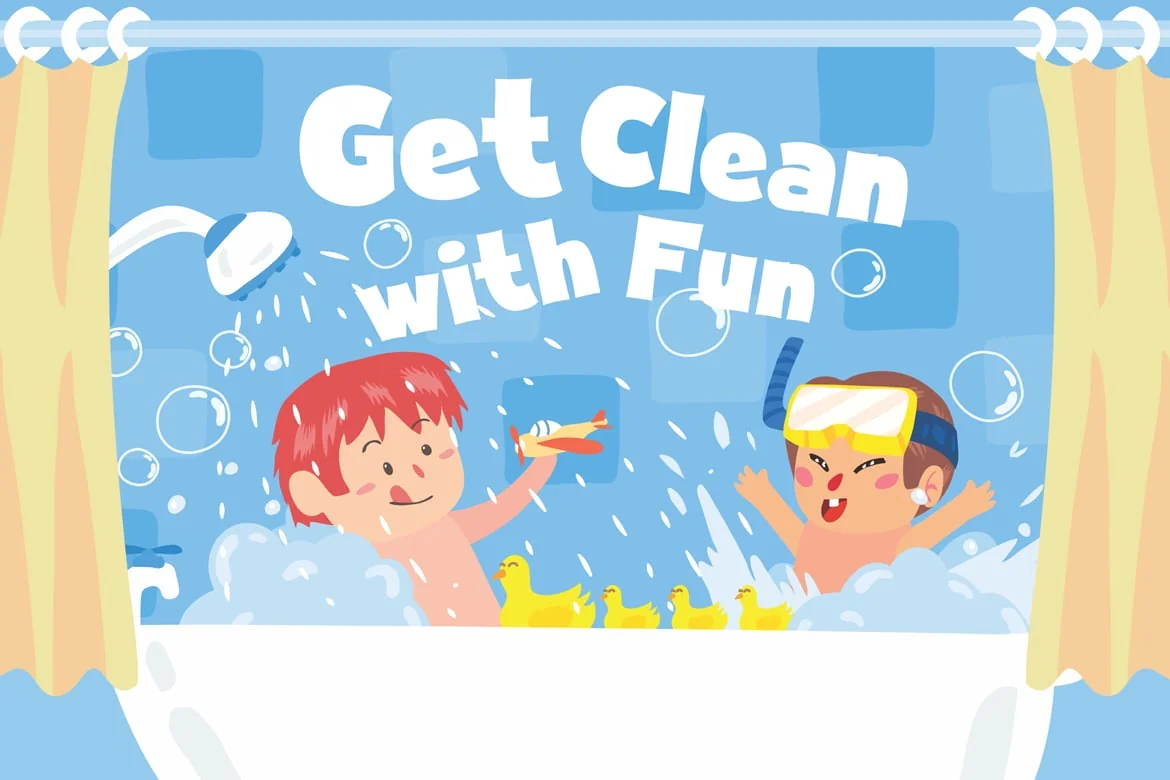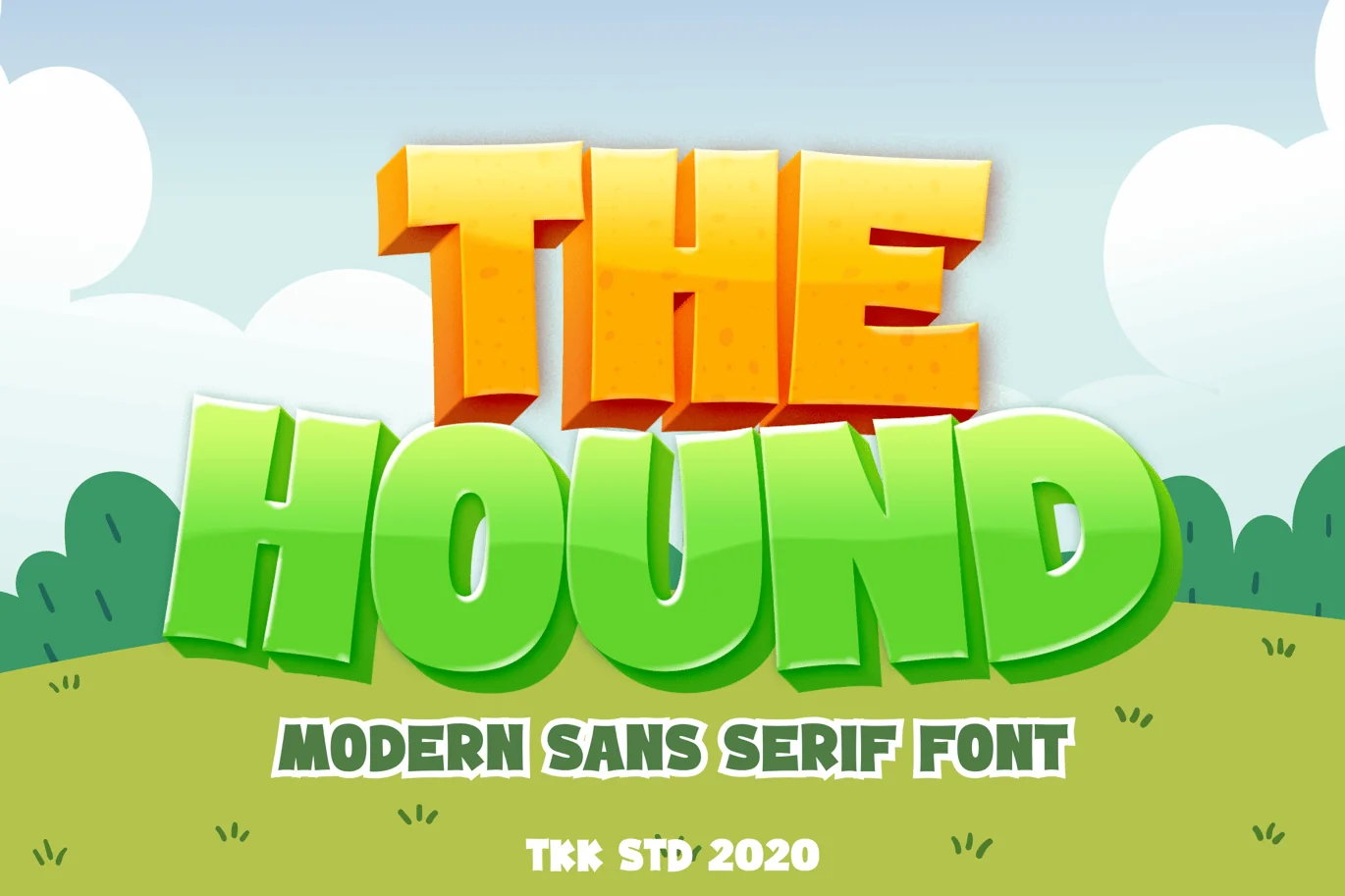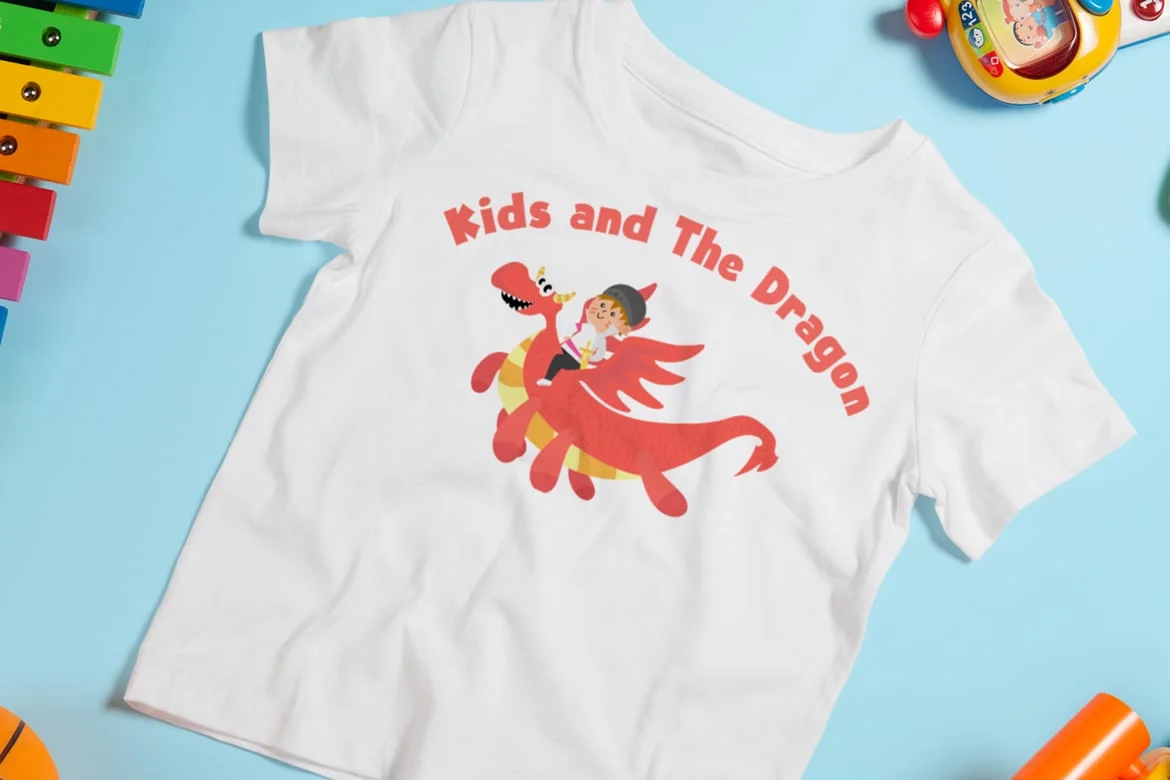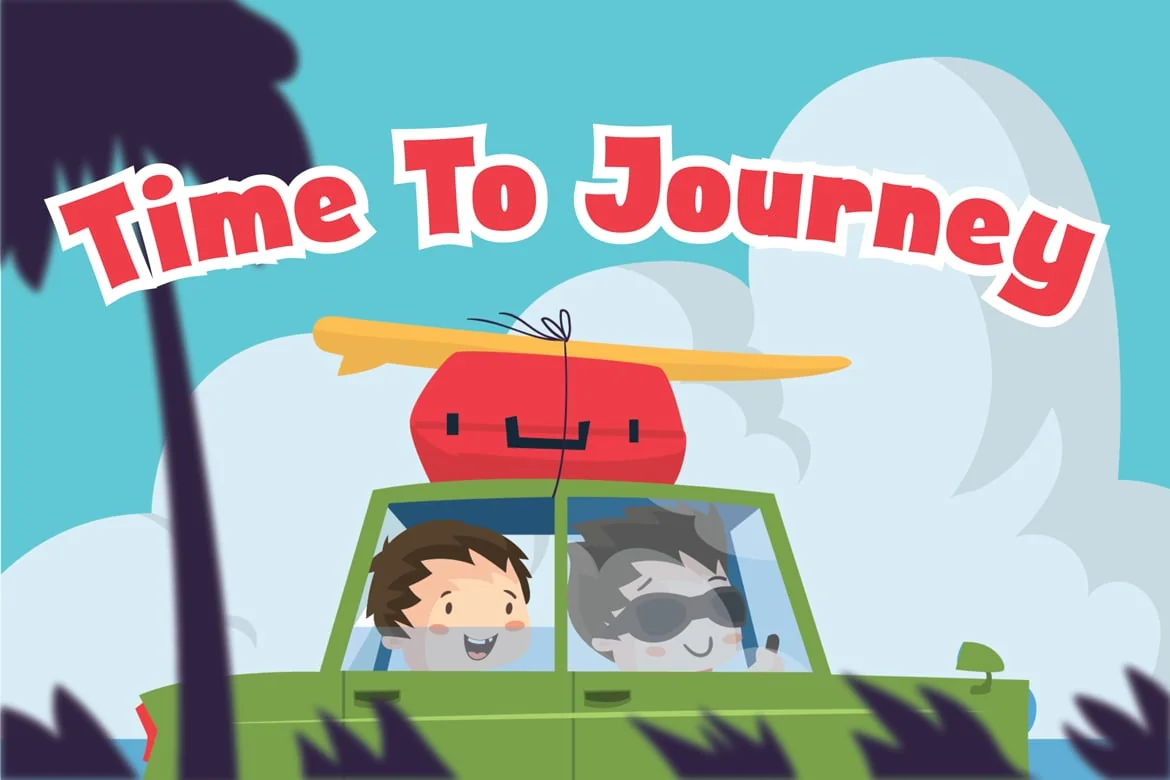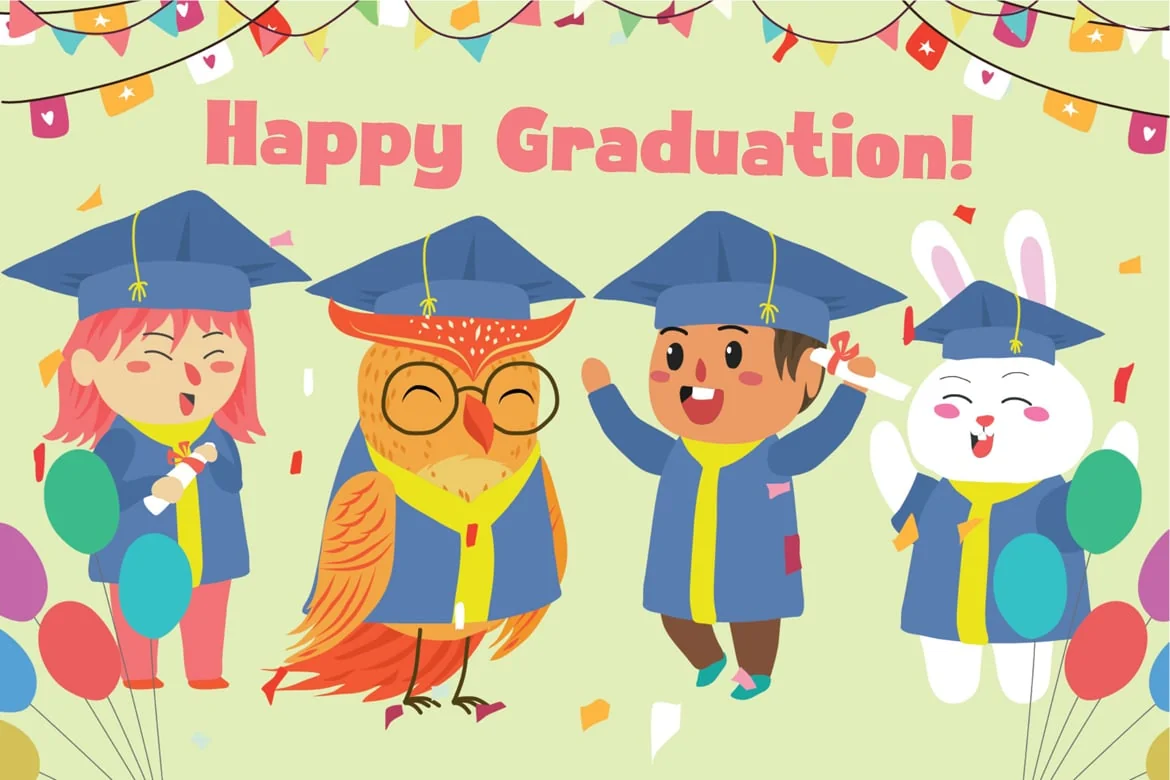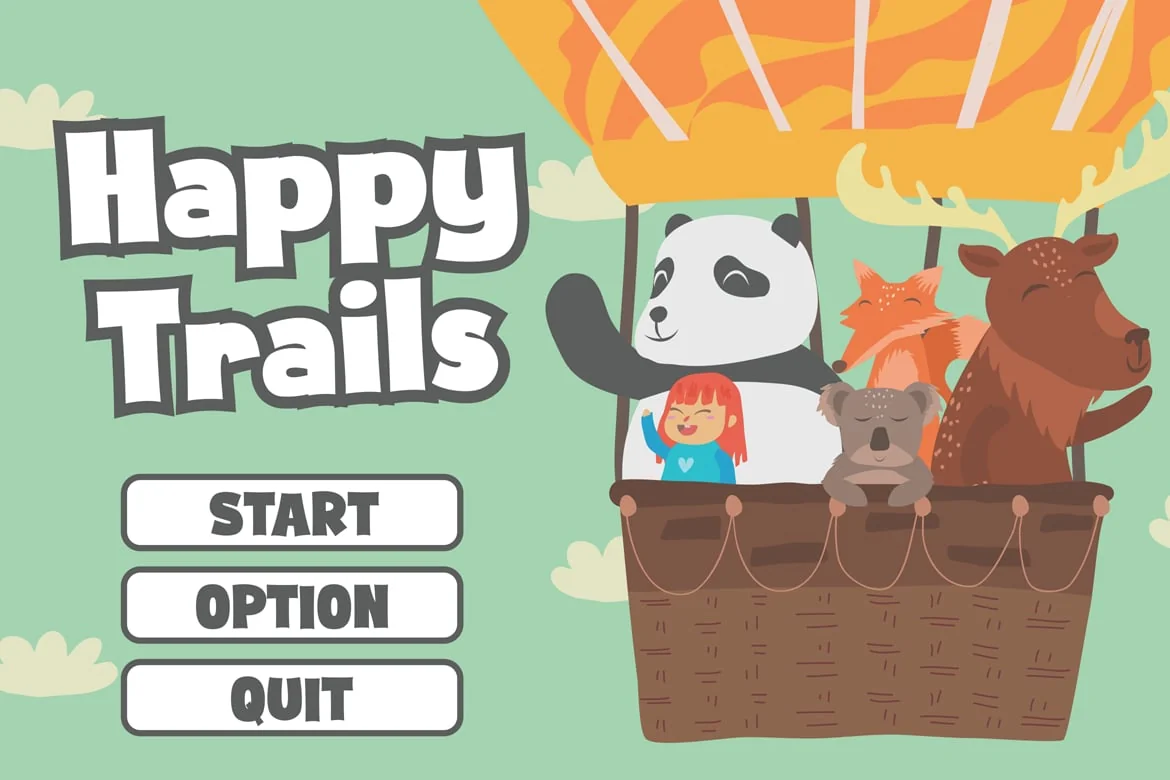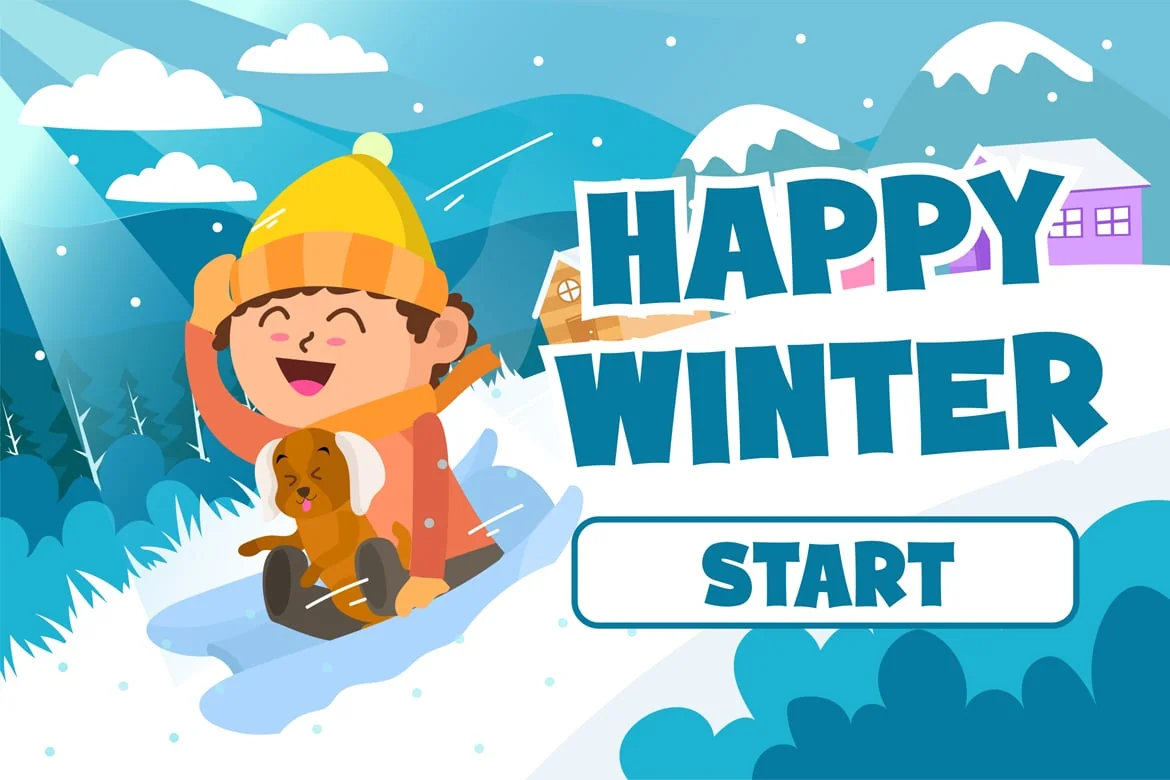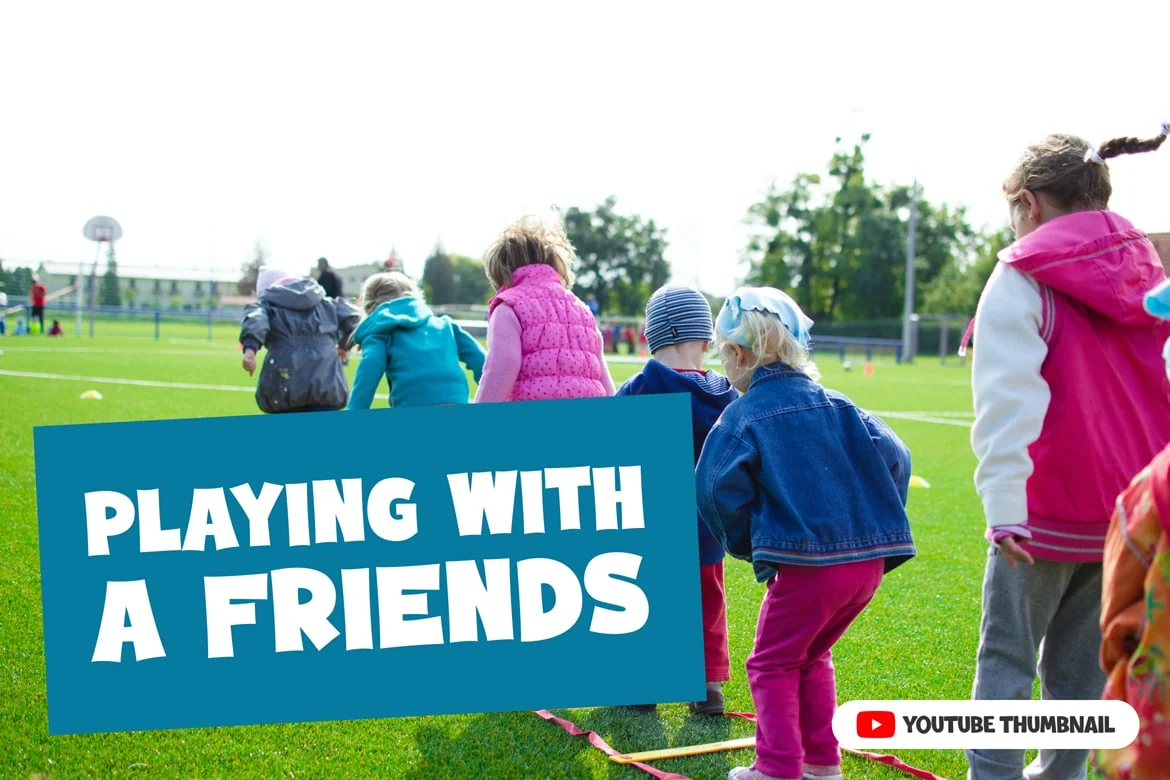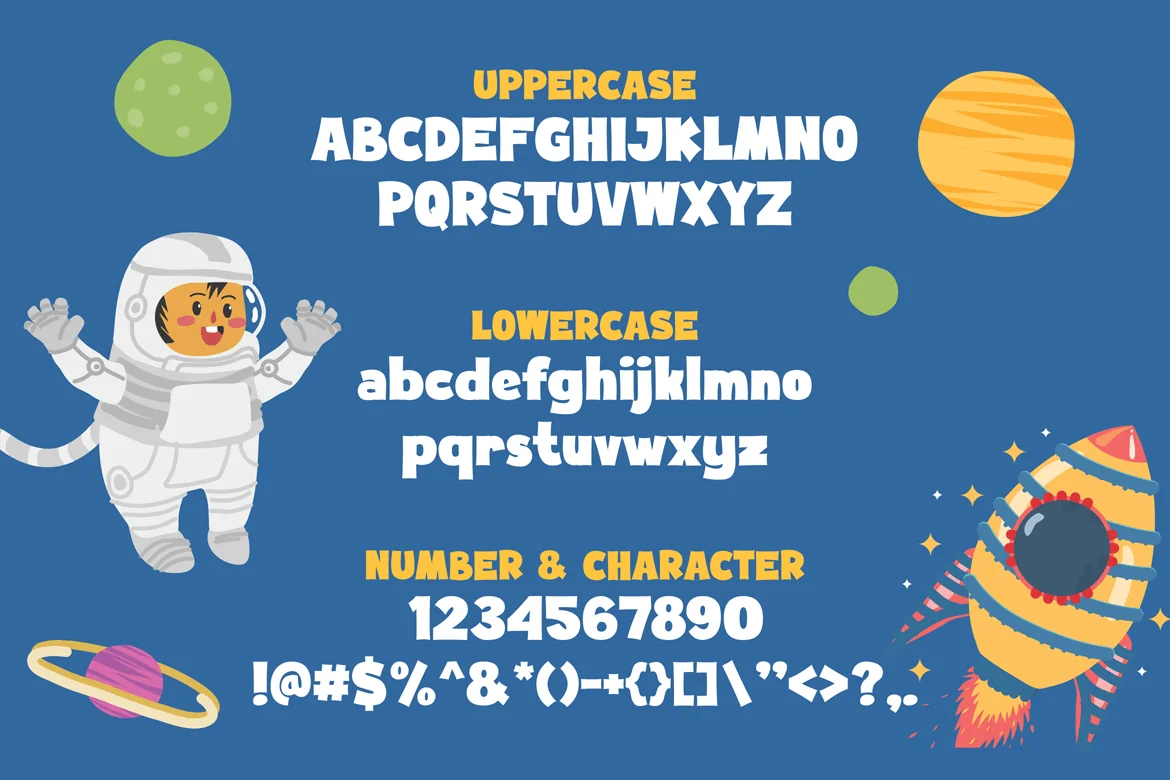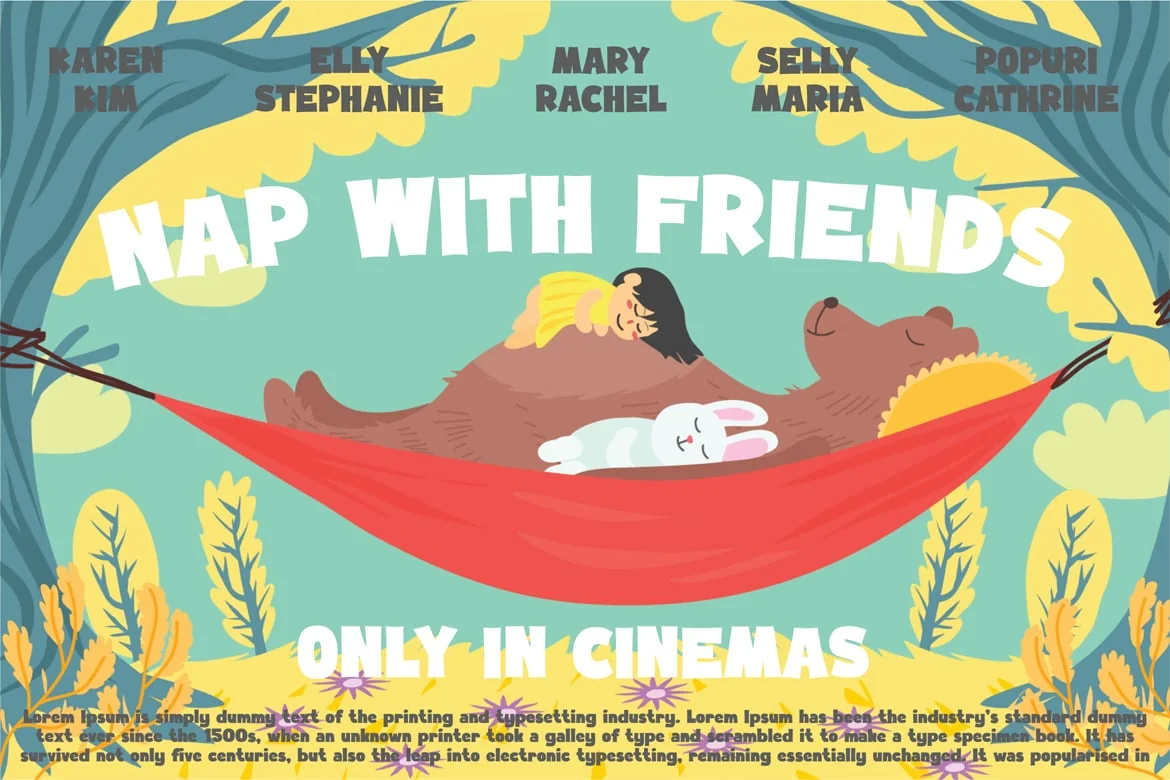
The Hound – Gaming cartoon font
The Hound is a modern cartoon font that although carry the seriousness and formality of a sans-serif font, but, it still do reflect the fun, cheerful, and happines of a children world.
Suit perfectly for Online Games, poster, movie title, fast food menu, magazine, youtube covers, youtube thumbnails, social media page covers and so on…